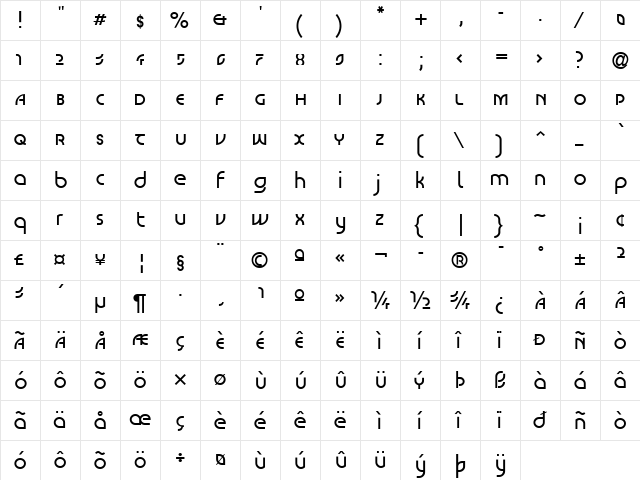
LTScott Venus Regular
Design Context for LTScott Venus Typeface
LTScott Venus takes a measured approach to typography — its balanced proportions and neutral character make it a reliable workhorse for both digital and print work.
Pro Tip: Use LTScott Venus in both headline and body roles to test its range before committing to a single application.